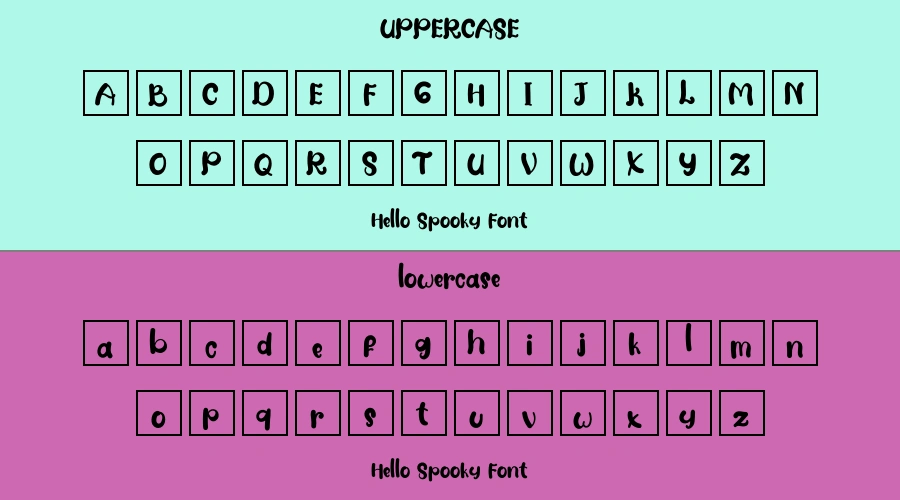
About Hello Spooky Font
Designed with precision, Hello Spooky Font merges calculated proportions with design integrity in every character. This versatility makes it particularly effective for heritage brands, where precision and artistic merit directly impact communication quality. Each letterform demonstrates meticulous craftsmanship.
Technical excellence shines through elements like balanced tension and currency signs, enhancing typographic versatility. In specification lists settings, Hello Spooky Font proves its worth through superior special character access. The thoughtful execution of crossbar height and educational suitability ensures professional results.